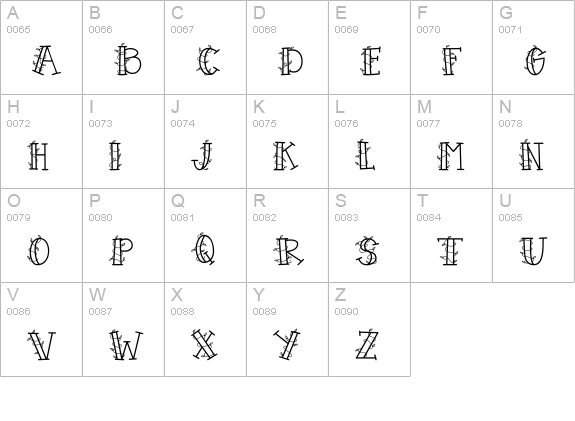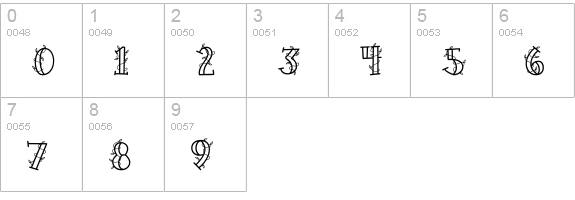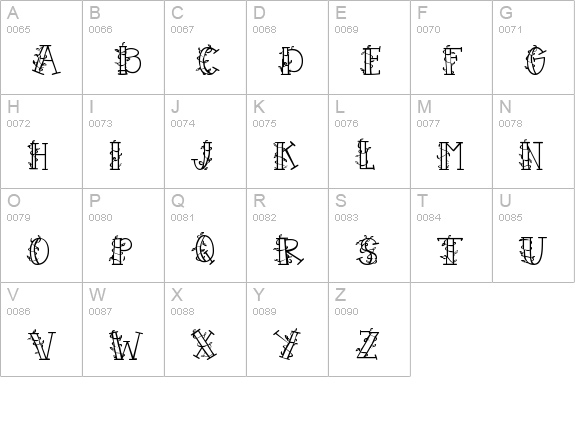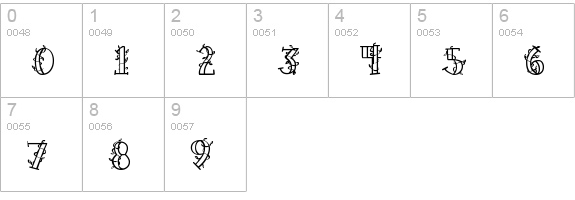
CK Grapevine Font Details
CK Grapevine font is a whimsical and elegant typeface that is perfect for adding a touch of charm to your designs. With its flowing lines and graceful curves, this font exudes a sense of sophistication and creativity. Whether you're working on invitations, logos, or branding materials, CK Grapevine font will elevate your projects to the next level. The best part is, CK Grapevine font is available for free download at FontsMarket.com. So you can easily add this beautiful font to your collection without breaking the bank. Don't miss out on the opportunity to enhance your designs with the timeless beauty of CK Grapevine font. Download it now and start creating stunning visuals that will leave a lasting impression.